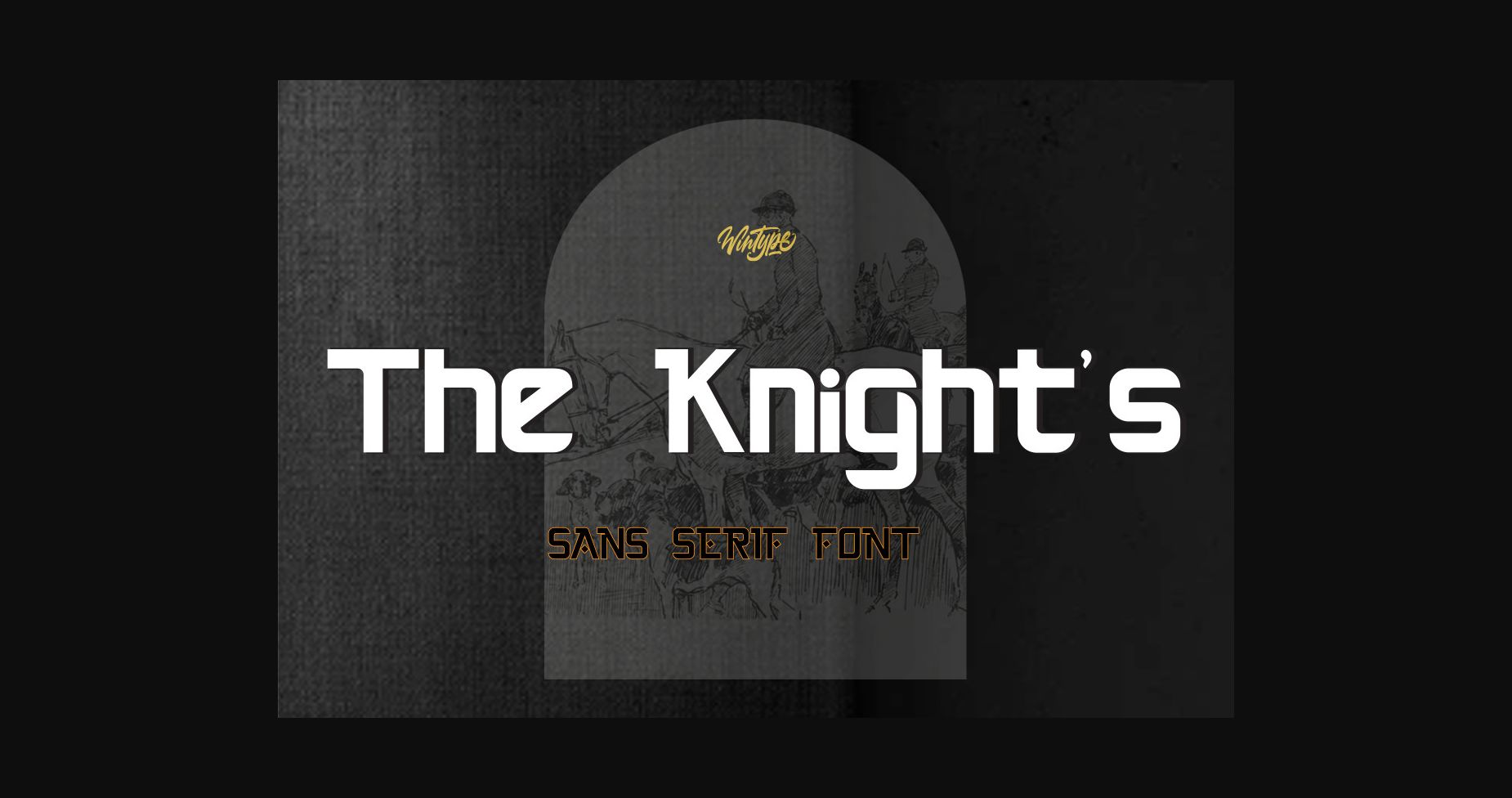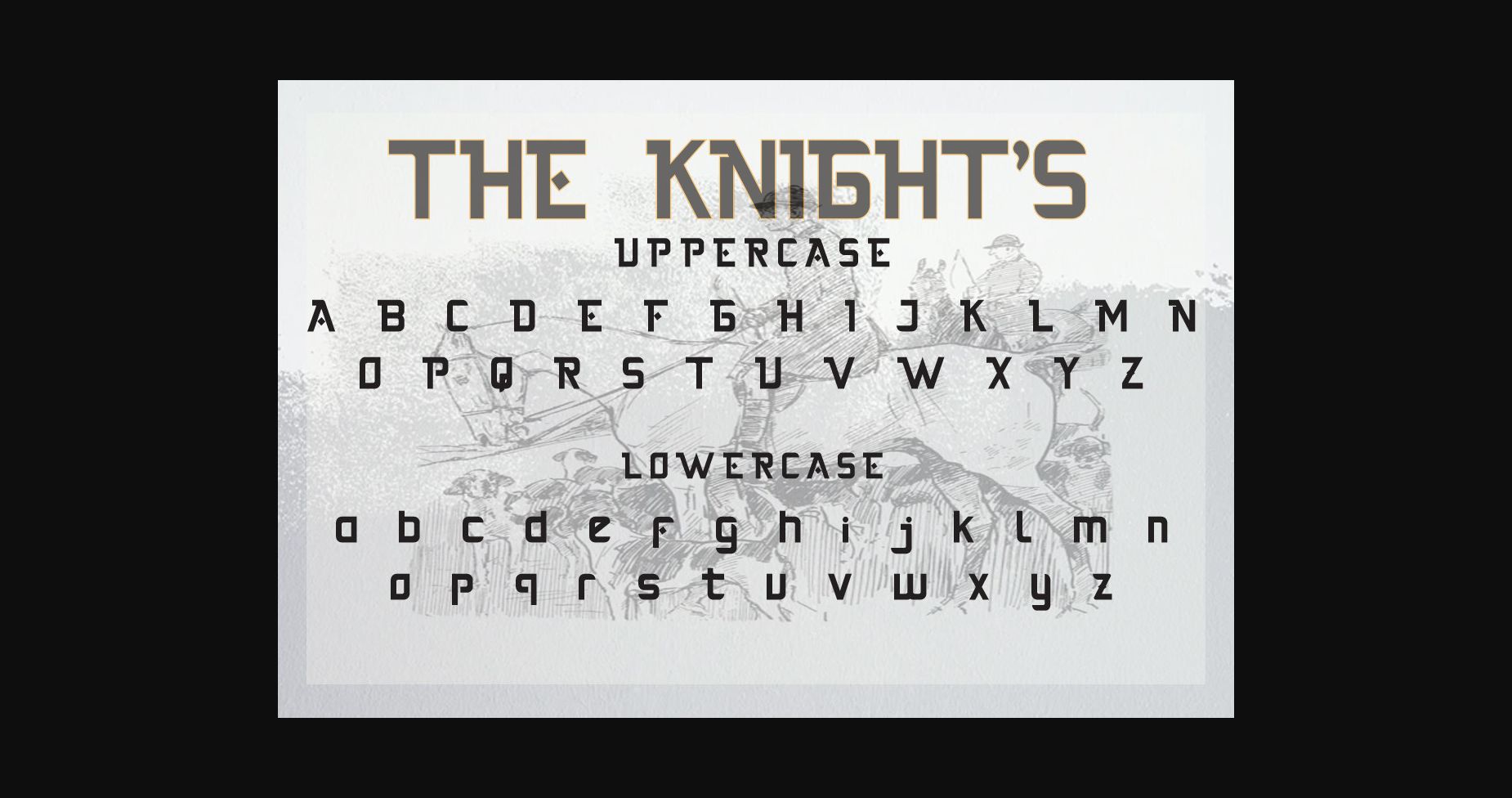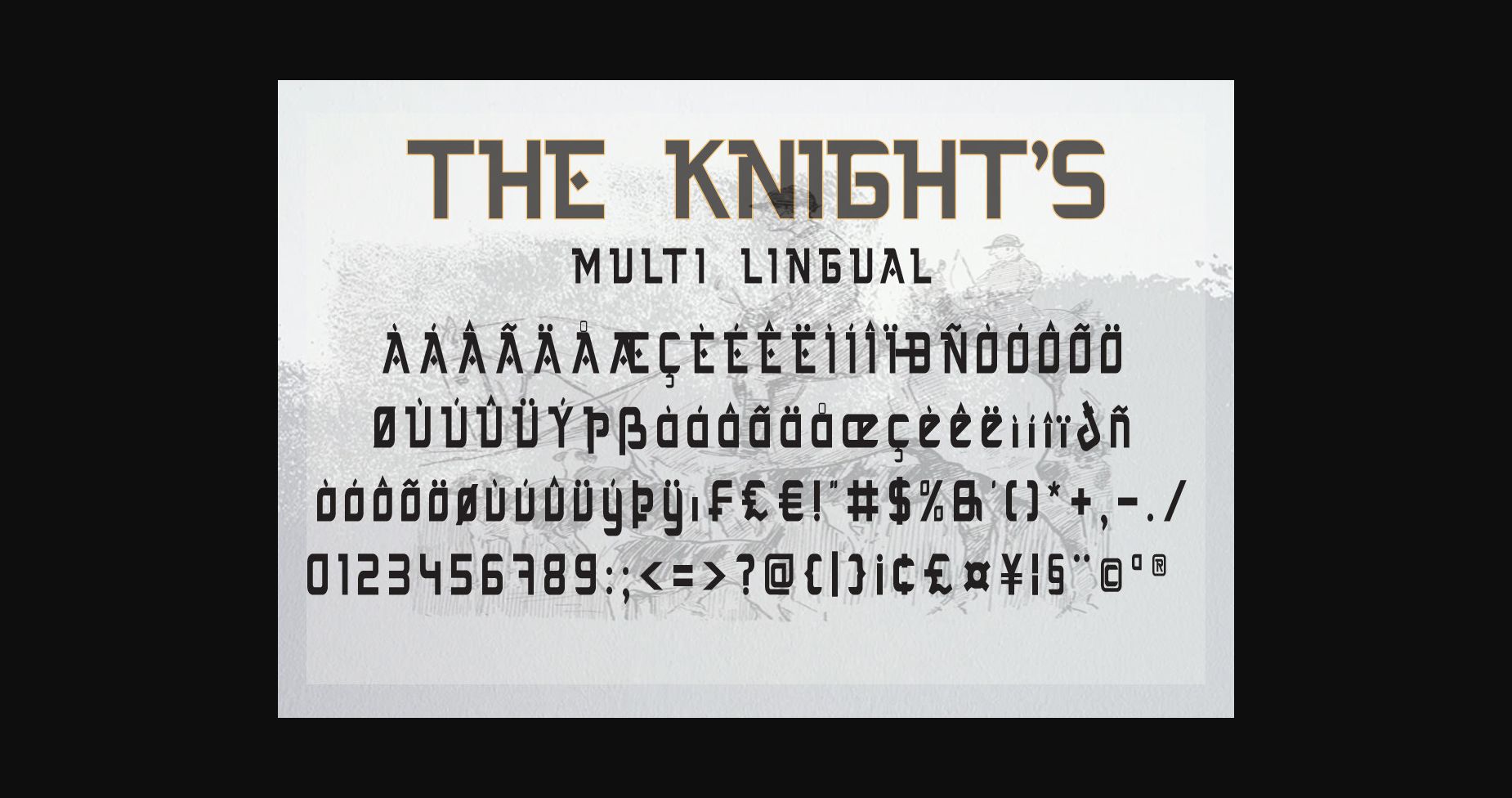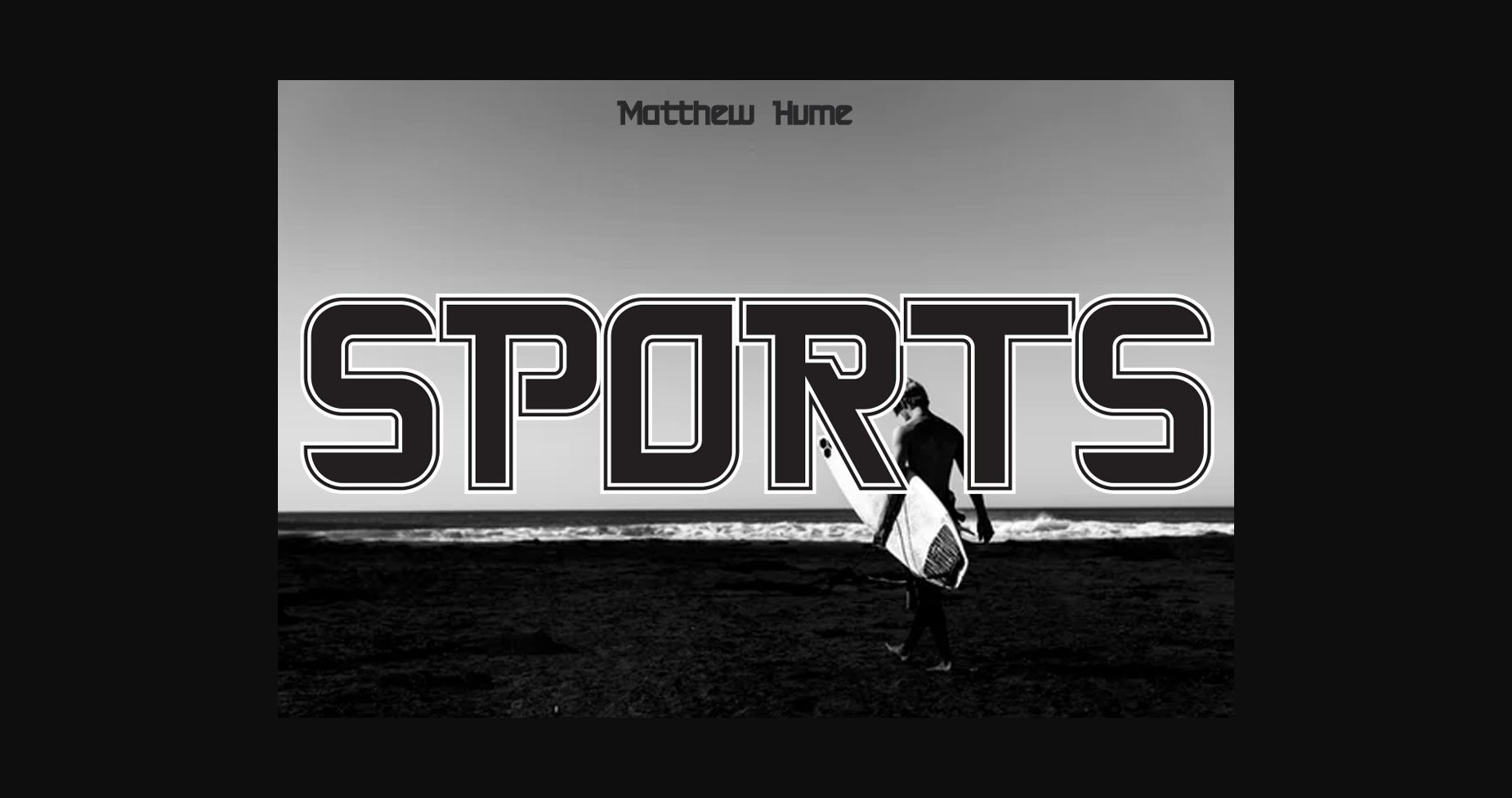
About The Knight Font
The Knight Font. Are you ready to make your branding shine? If you need to create a big, bold logo for your business, work on a poster for an event, or whatever your project is, this is the perfect font for you. This font can bring your brand to life and add a touch of modernity, fun, and style. Perfect for creating stunning titles, logos, menus, social media graphics, and more.